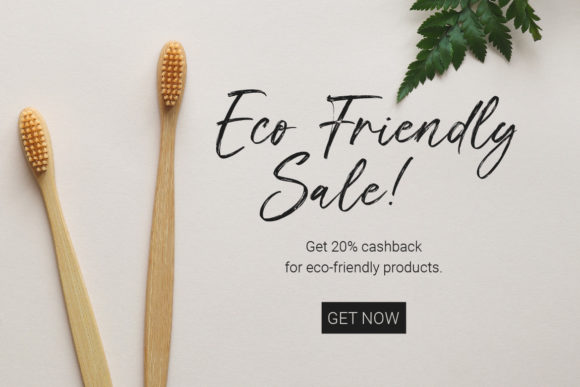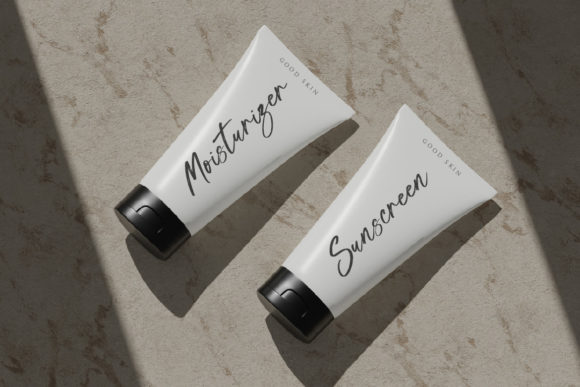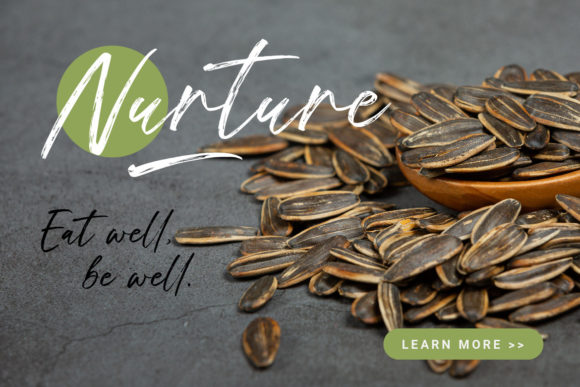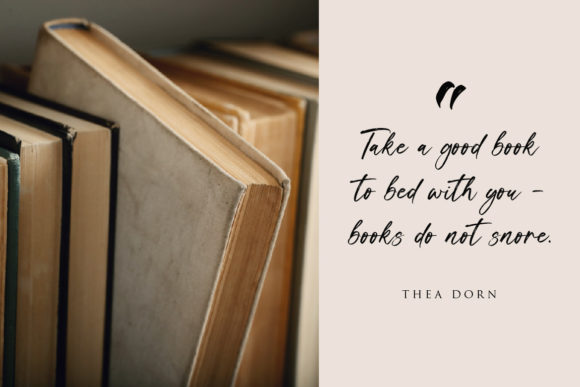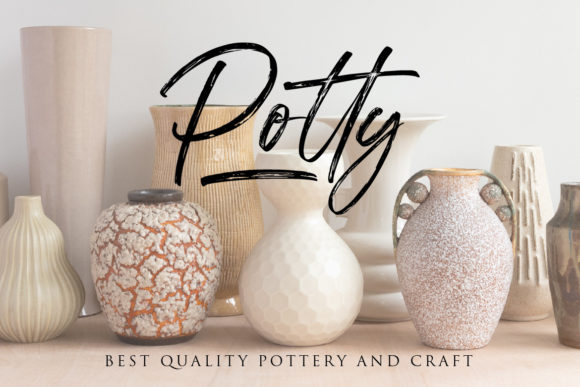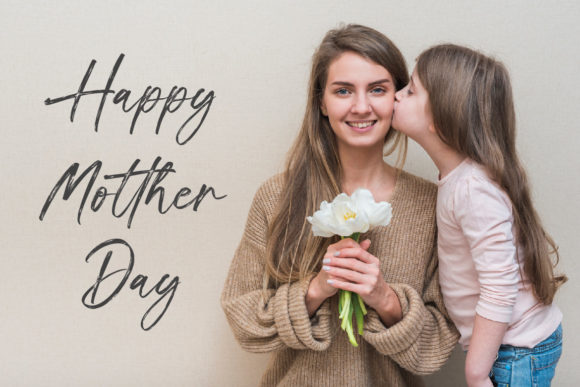
The Frasell Font: A Lovely, Flowing Script to Elevate Your Designs
I still remember the time I was working on a project for a client who wanted a elegant, hand-written feel. I spent hours scouring the internet for the perfect font, but nothing seemed quite right. That was until I stumbled upon the Frasell font. With its lovely, flowing script and delicate touches, it was exactly what I needed to bring my design to life. In this article, I’ll share my experience with Frasell, including what I love about it, some quirks to be aware of, and how to get the most out of this beautiful font.
An Honest Review of Frasell Font
What I Love About Frasell ✨
- 💫 Unique and eye-catching design: Frasell has a distinctive, hand-brushed feel that sets it apart from other script fonts.
- ✅ Elegant and sophisticated: This font is perfect for projects that require a touch of luxury and refinement.
- 🌈 Versatile: Frasell works well for a variety of design applications, from wedding invitations to branding and packaging.
- 👍 Easy to read: Despite its elegant feel, Frasell is surprisingly legible, even at smaller font sizes.
- ⚠️ Limited use in body text: While Frasell is beautiful, it’s not the best choice for long blocks of body text. It’s better suited for headings, titles, and short paragraphs.
- 🤔 Some letters may require manual kerning: As with any script font, you may need to adjust the kerning between certain letters to get the best results.
A Practical Guide to Using Frasell Font
The Story Behind Frasell Font
Frasell was designed by a team of typographers who wanted to create a beautiful, elegant script font that would add a touch of sophistication to any design project. Inspired by traditional calligraphy and hand-lettering, Frasell is the perfect choice for designers who want to add a personal touch to their work.
| Font Name | Frasell Font |
| Author | Ef Studio |
| What is Frasell font best used for? | Frasell font is best used for projects that require a elegant, sophisticated feel, such as wedding invitations, branding and packaging, and headings. |
| Is Frasell font suitable for body text? | No, Frasell font is not suitable for long blocks of body text. It’s better suited for headings, titles, and short paragraphs. |